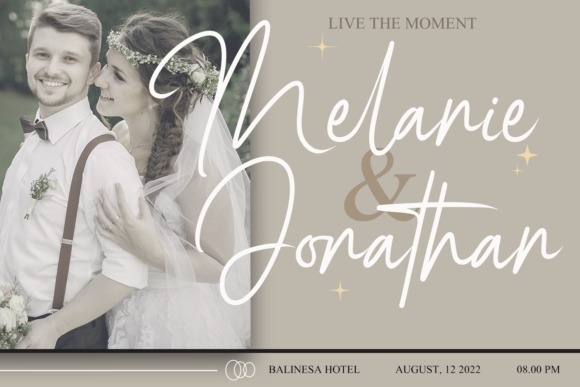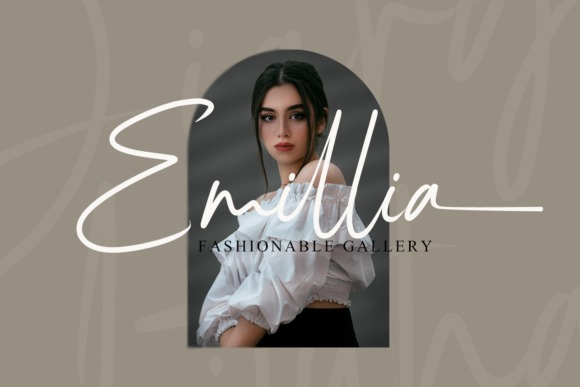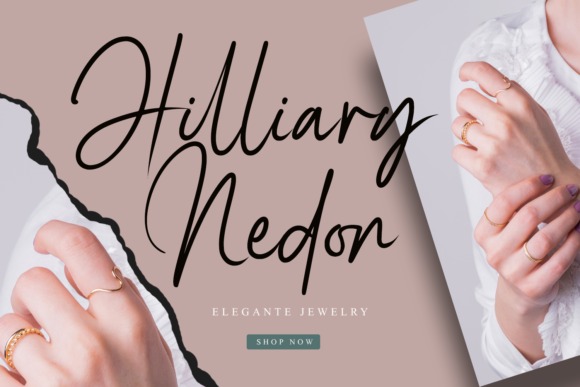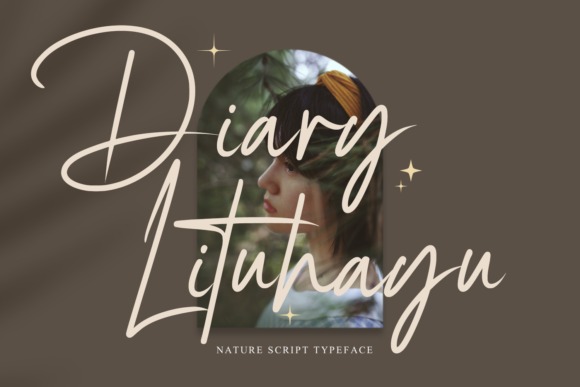
Diary Lituhayu Script Font
This typeface is one of scripts handwritten font designed in 2022. Its cursives make this font has gorgeous and stunning appearance. This script font with elegant and signature style, that are very beautiful, luxurious, and high class for creating handwritten-style logos, wedding stationery, photographer watermarks logos, modern websites, fashion branding, name card, wedding invitation and all the identity of your business products.